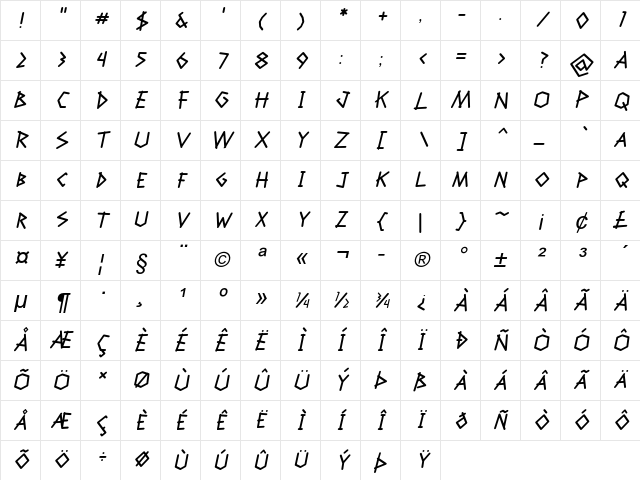
Twigero Italic
Twigero Family
Twigero Italic
Design Context for Twigero
Twigero is a composed and adaptable typeface that performs quietly and consistently across a wide range of design contexts. The slanted form adds forward momentum and visual energy.
Pro Tip: Use Twigero for emphasis, pull quotes, and subheadings where its slanted energy can add rhythm to the layout.